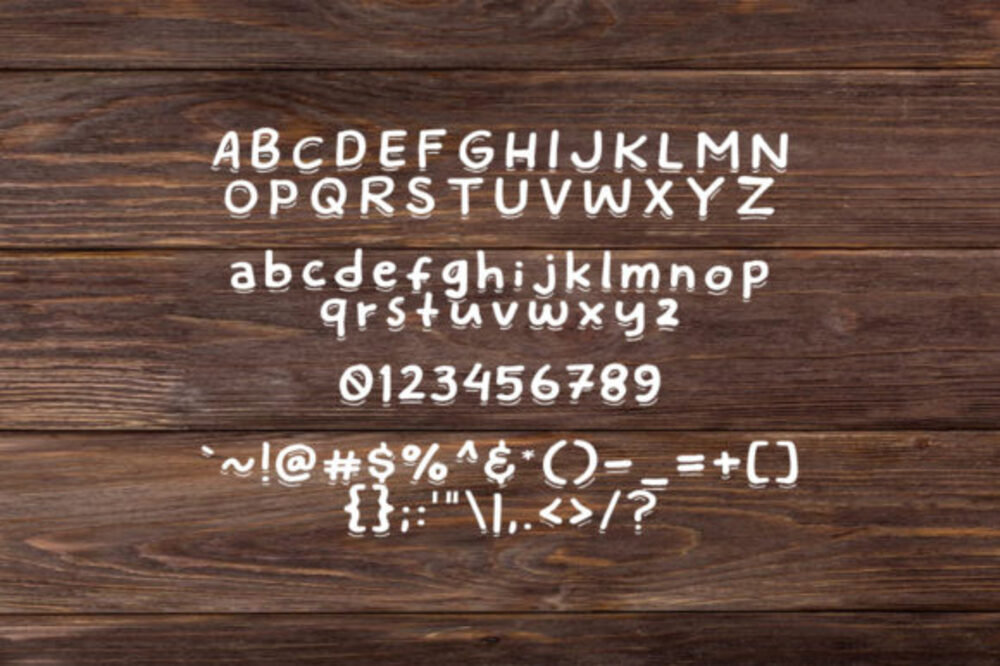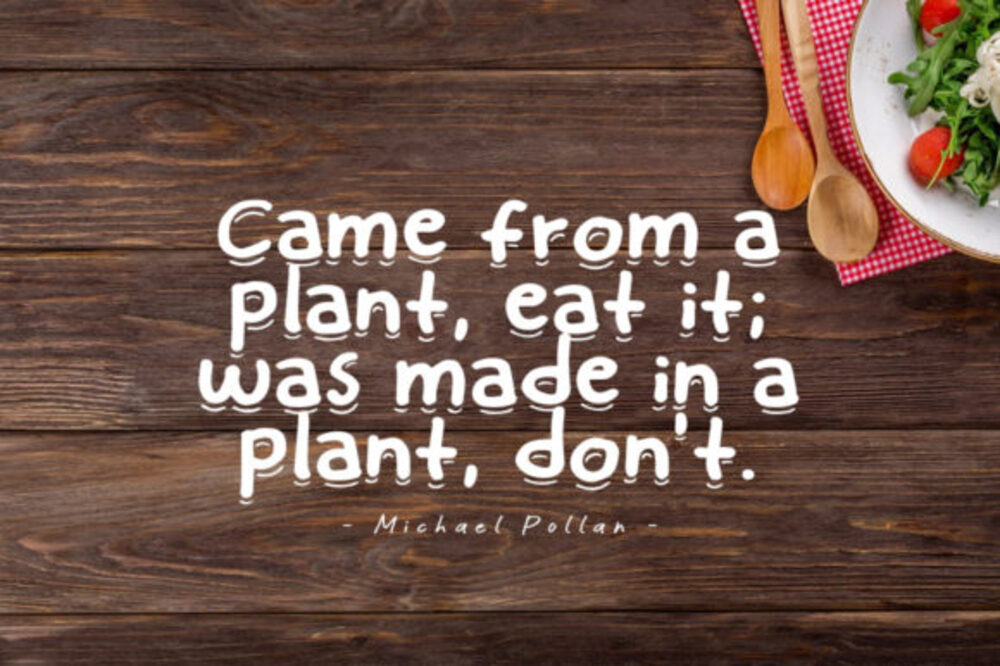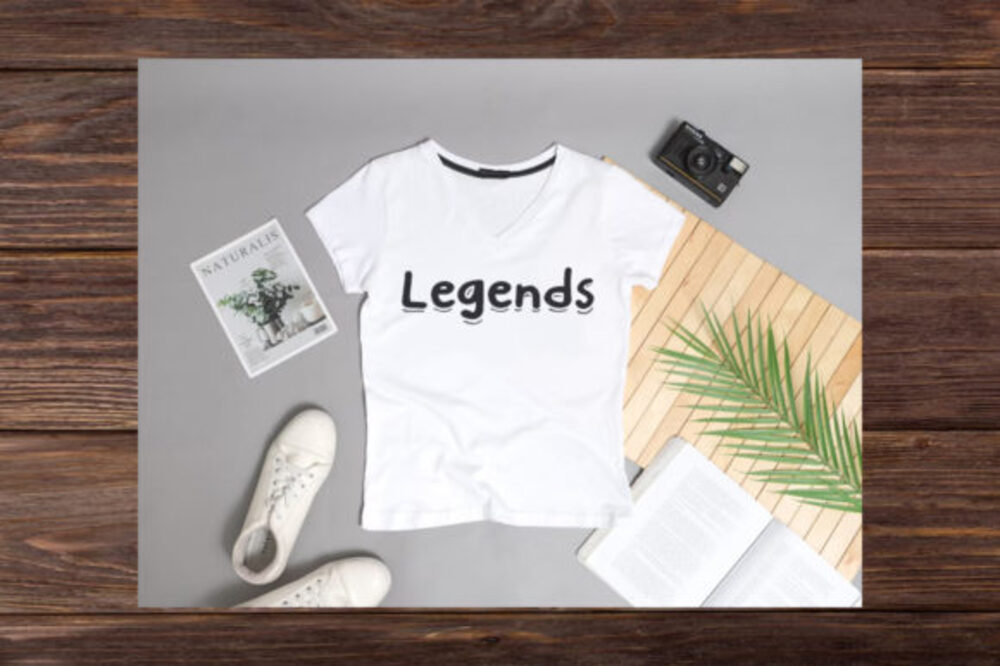
Eatday Font
Eatday is a playful and inviting display font designed to capture the essence of fun and creativity. Featuring bold shapes and quirky details, it’s perfect for food packaging, café branding, and cheerful advertisements. Its lighthearted charm adds personality to any project, making it ideal for designs that aim to engage and delight. Eatday brings joy and energy to every word it shapes.